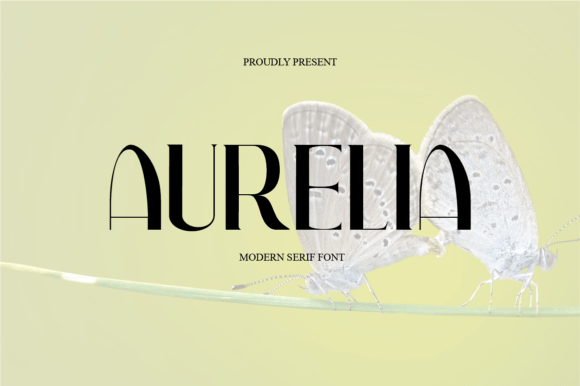
I still remember the frustration of working on a project, hours spent crafting the perfect design, only to be held back by one thing: the font. My client wanted a modern, sleek look for their tech brand, but every font I tried seemed to fall flat. That was until I stumbled upon the Aurelia font. ✨
It was love at first sight! The clean lines, the elegant serifs, and the versatility of this modern serif font won me over. Aurelia font is designed for logos of Technology and brands, making it perfect for posters, t-shirts, packaging, branding, logotype, digital design, and more. In this article, I’ll share my experience with Aurelia, its features, and how to make the most of it in your designs.
An Honest Review of Aurelia Font
- ✨ Modern and Professional Look: Aurelia gives your designs a sleek, modern feel that’s sure to impress.
- ✅ Versatility: From magazine headers to typography, clothes, posters, brochures, and packaging, Aurelia is perfect for a wide range of design needs.
- 💡 Elegant Serifs: The subtle serifs add a touch of sophistication to any design.
- 🎨 OpenType Features: Aurelia comes with a range of OpenType features, glyphs, and stylistic alternates, making it easy to customize your text.
While Aurelia is an excellent font, there are a few things to keep in mind: ⚠️
- ⚠️ Not Suitable for Body Text: Aurelia is best used for headlines, titles, and short paragraphs. For longer texts, you may want to pair it with a more readable font.
The Designer Inspiration Behind Aurelia
Aurelia font was designed with the modern designer in mind. Its creator aimed to craft a font that would be both elegant and versatile, suitable for a wide range of design applications. 💻
The design process involved a deep understanding of typography and a passion for creating something truly unique. The result is a font that’s both modern and timeless, perfect for designers looking to elevate their work.
Q: What is Aurelia font best used for?
A: Aurelia font is perfect for logos, posters, t-shirts, packaging, branding, logotype, digital design, and more. It’s ideal for headlines, titles, and short paragraphs.
Q: Can I use Aurelia for body text?
A: While Aurelia is a beautiful font, it’s best used for headlines and titles. For longer texts, you may want to pair it with a more readable font.